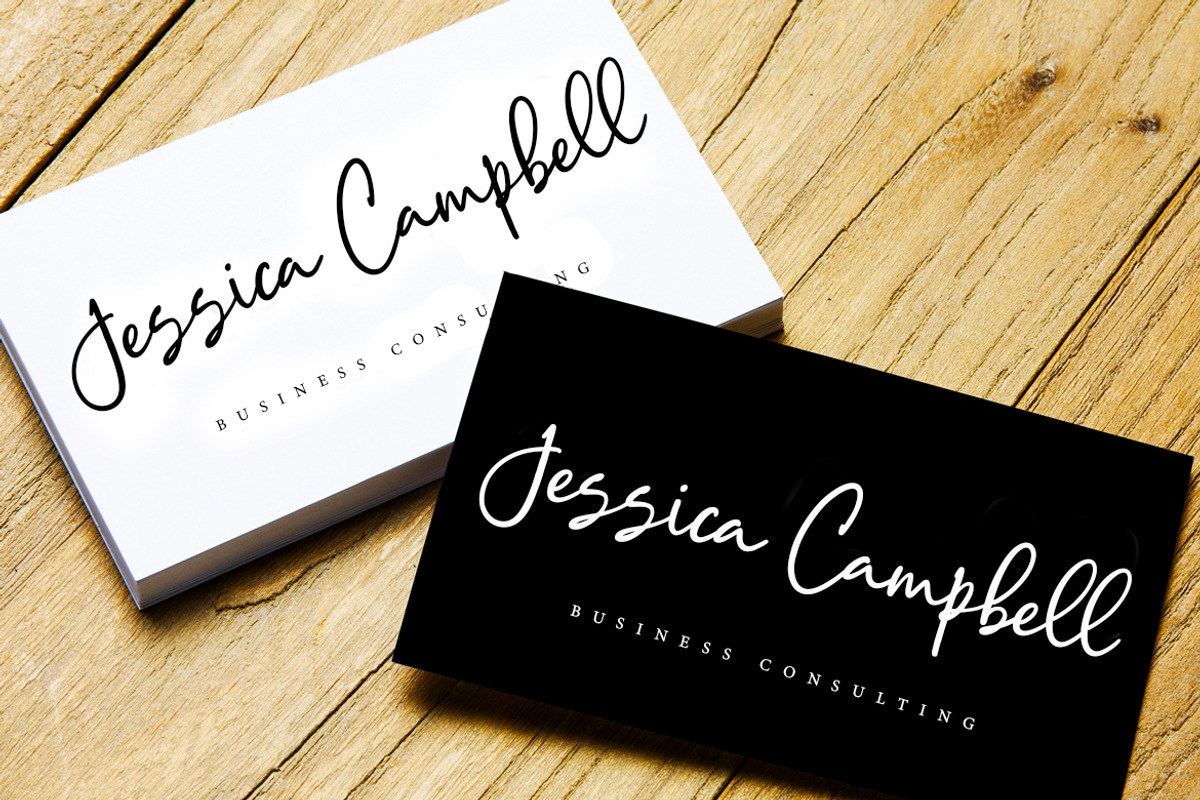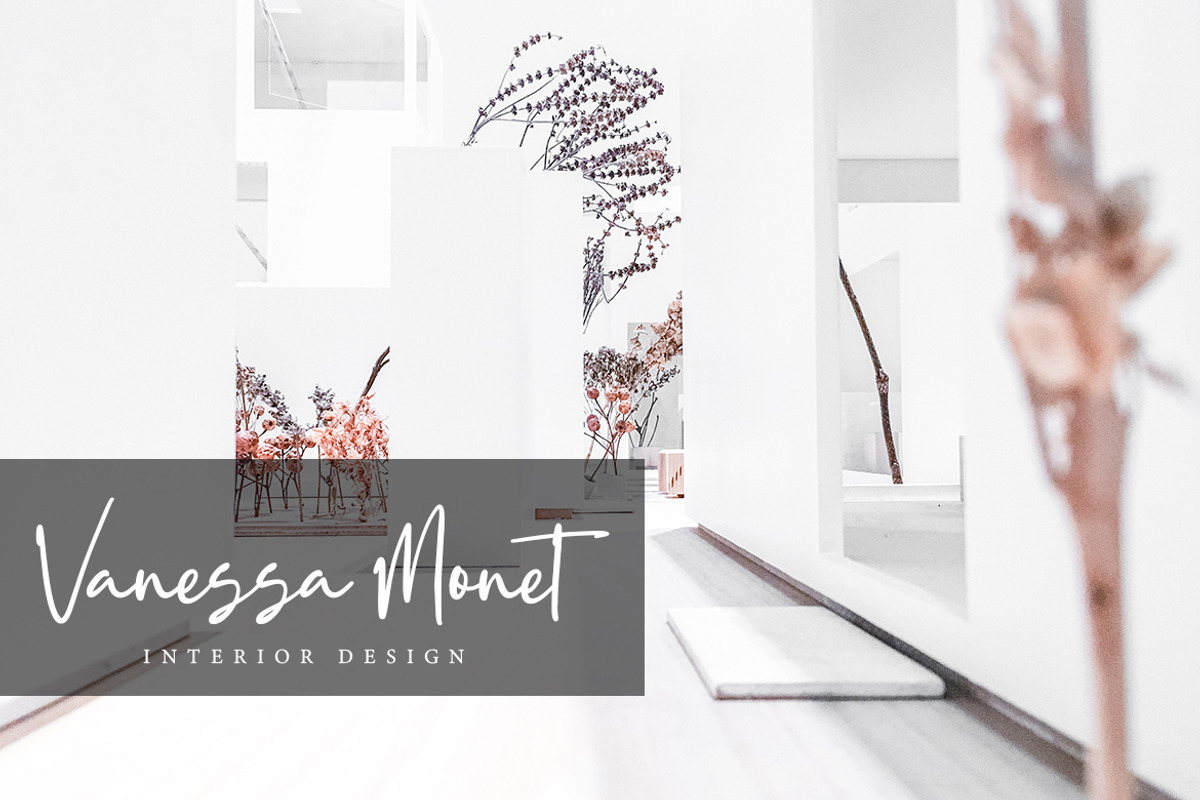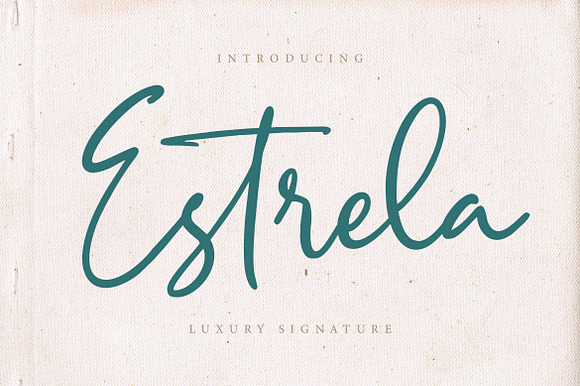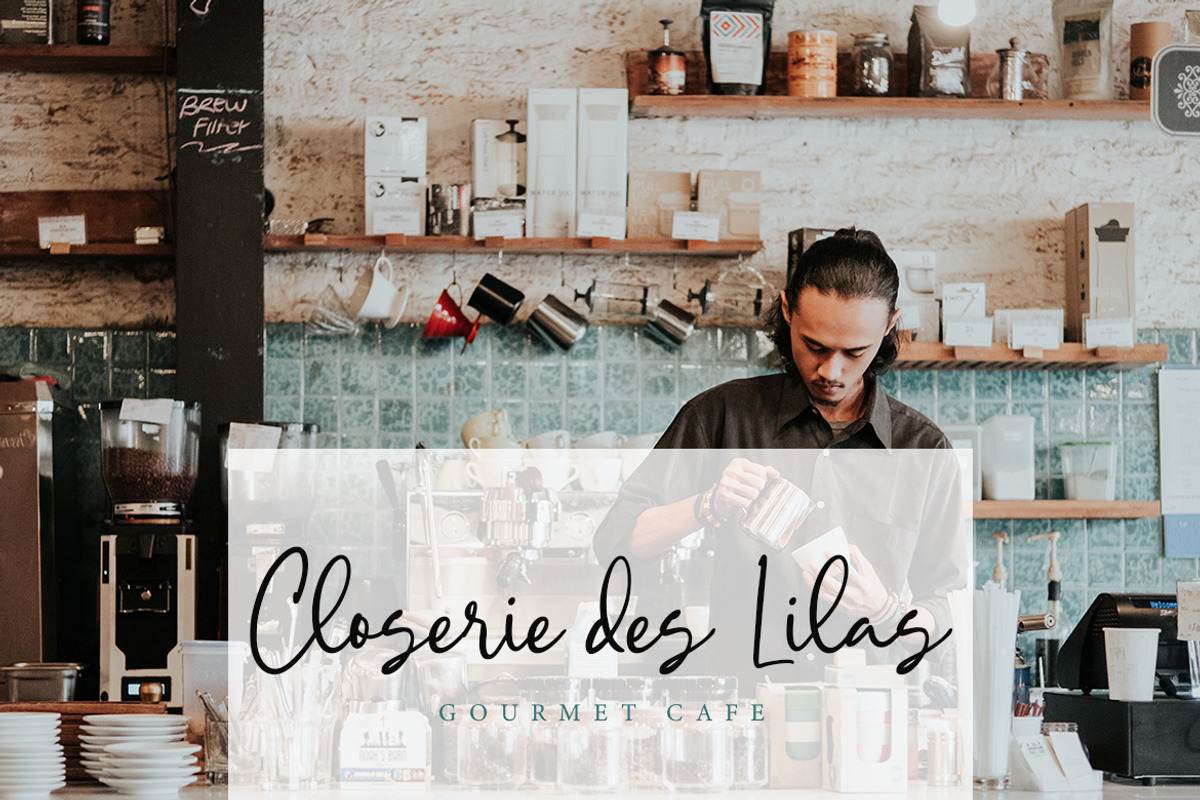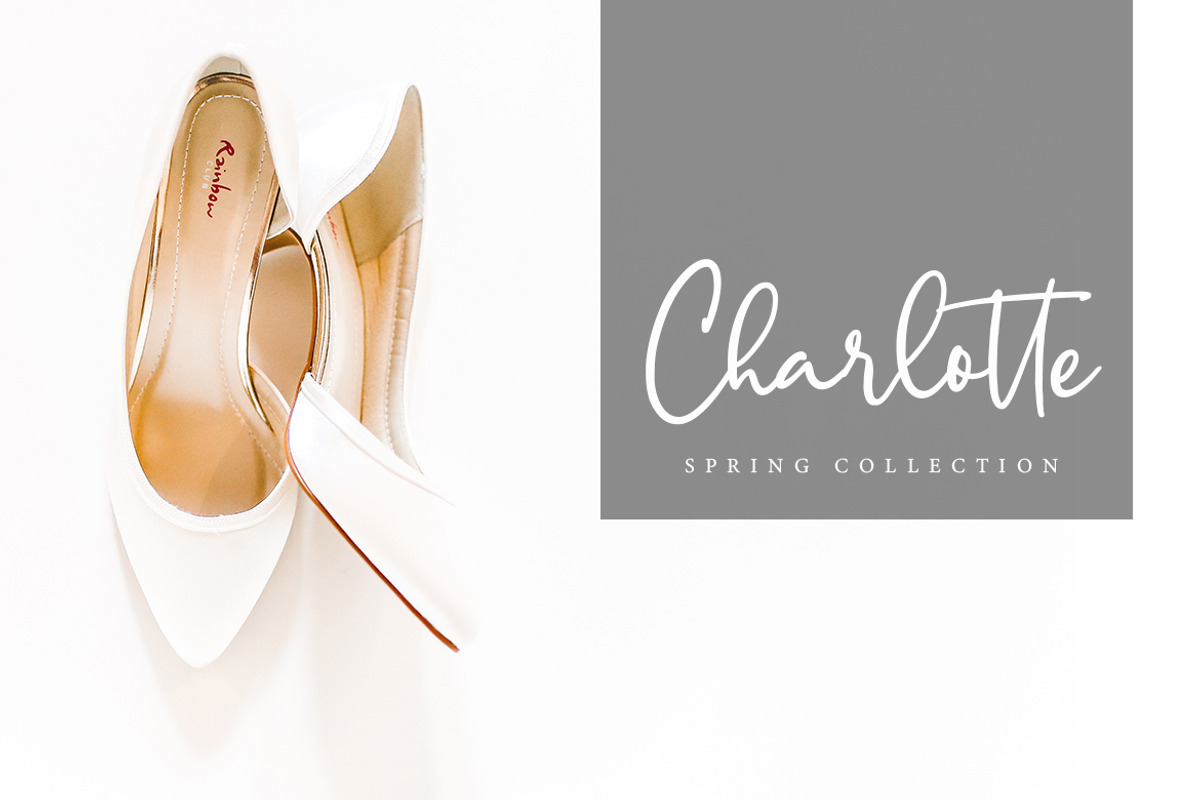
Estrela Luxury Wedding Font
Estrela is handwritten script font with luxury signature style that make your latest projects can be awesome.
Estrela is perfect for branding projects, logo, wedding designs, social media posts, advertisements, product packaging, product designs, label, photography, watermark, invitation, stationery and any projects that need handwriting taste.
Estrela Luxury Wedding Font by Creatype Studio fits naturally into Branding, posters, packaging, typography.